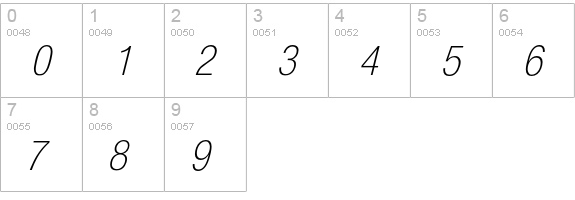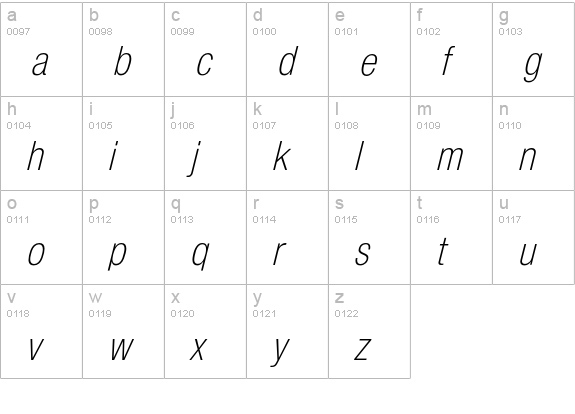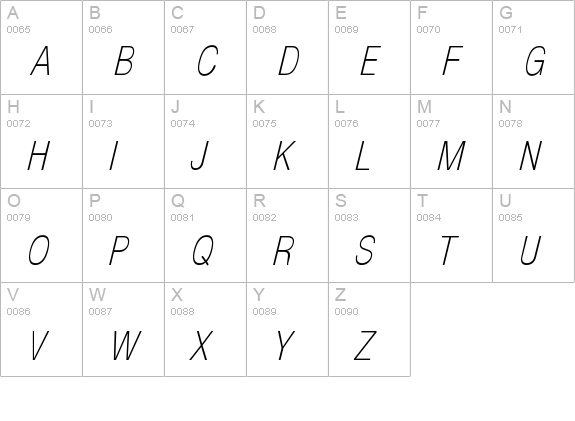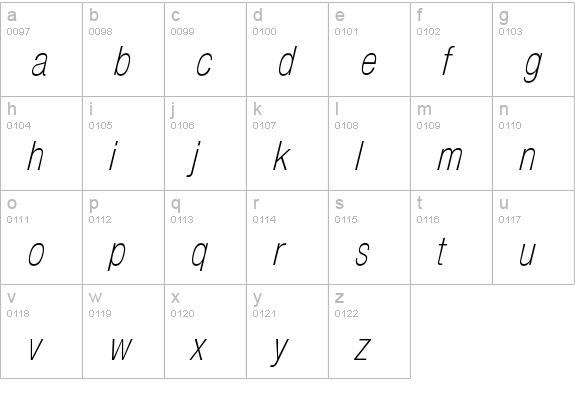
Olnova-LightCondIta Font Details
Olnova-LightCondIta is a graceful and elegant font that exudes sophistication and modernity. With its slender and condensed design, this typeface is perfect for adding a touch of style to any project. The delicate italics of Olnova-LightCondIta lend a sense of refinement and class to text, making it ideal for use in editorial design, branding, and more. What makes Olnova-LightCondIta even more appealing is that it is available for free download at FontsMarket.com. This means that you can easily access this stunning font and use it in your creative endeavors without any cost. Don't miss out on the opportunity to elevate your designs with the beauty of Olnova-LightCondIta – download it today and see the difference it can make!